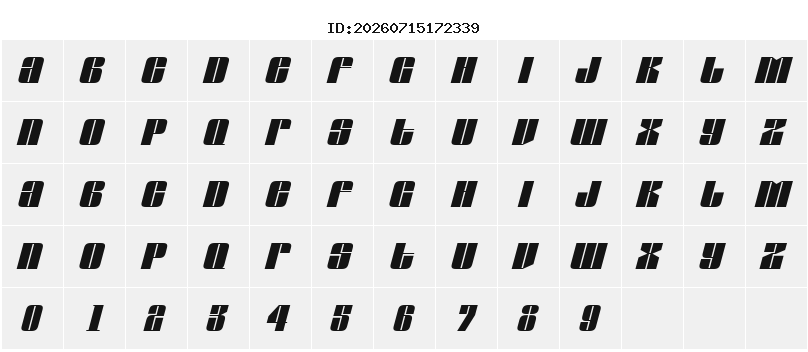
a_GlobusOblique Preview
• Font Name: a_GlobusOblique
• Full Font Name: a_GlobusOblique
About a_GlobusOblique.ttf
a_GlobusOblique.ttf is a modern, elegant sans-serif font designed for ultimate readability and visual harmony. Perfect for branding, headlines, web design, and print materials.